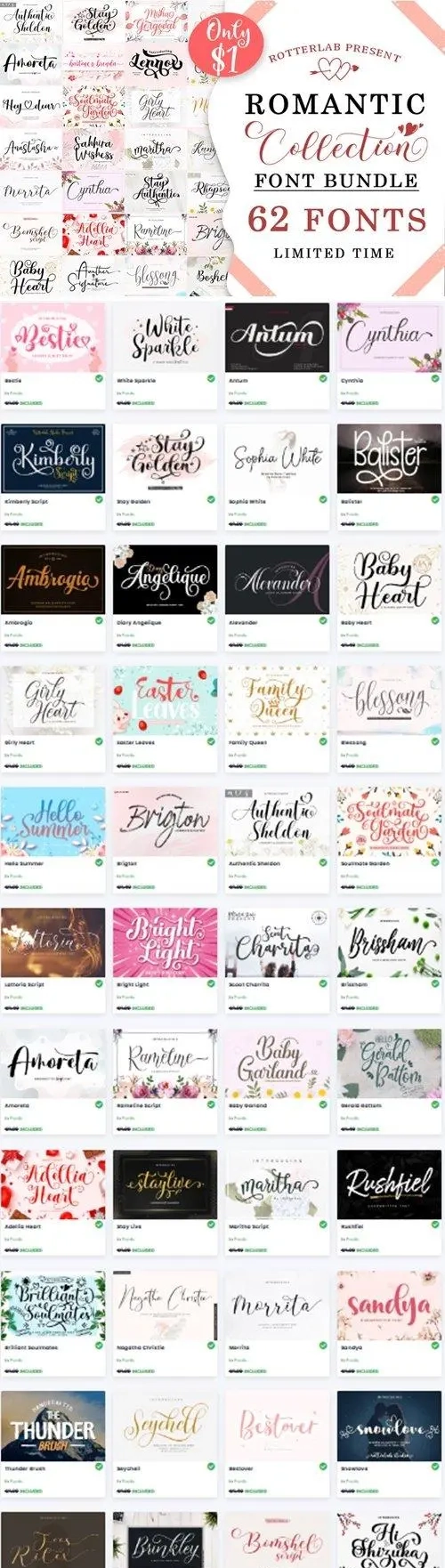
Romantic Collection Font Bundle
Introducing the Romantic Collection Font Bundle, a carefully curated selection of elegant typefaces designed to add a touch of sophistication to your projects. This bundle features a variety of font styles, including script, serif, and display fonts, each crafted to evoke a sense of romance and charm.
• Multiple font styles: script, serif, and display
• Variety of weights for versatile use
• High-quality design suitable for both print and digital media
• Perfect for branding, wedding invitations, logos, and more
• Combine different styles for unique typography